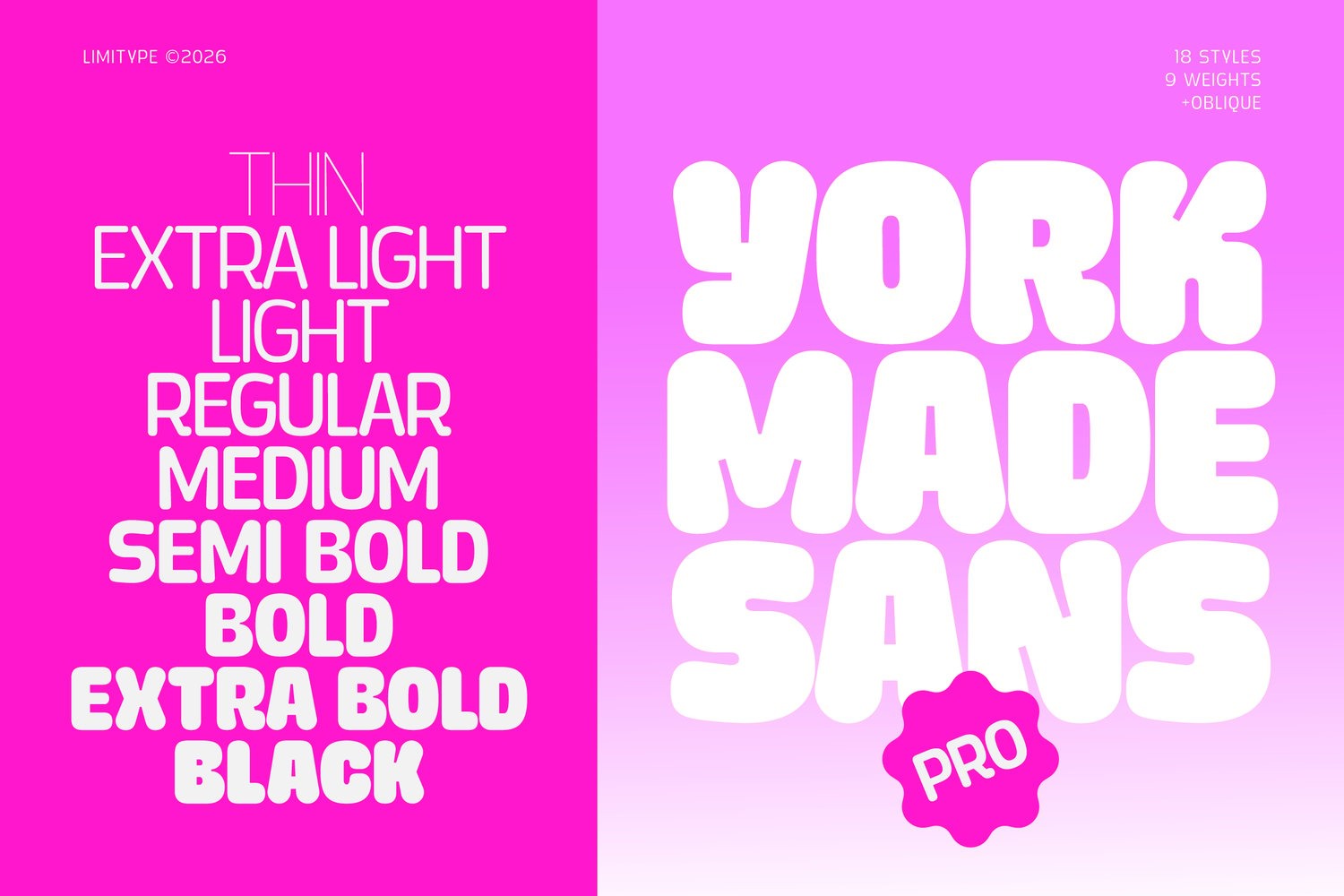
Yorkmade Pro – Sans Serif Font Family
Yorkmade Pro – Sans Serif Font is a professionally designed typeface that delivers clarity, structure, and consistent performance across various design applications. This is the pro version of the previous font, Yorkmade standard, featuring an updated family that is more versatile and enriched with additional glyph characters. Yorkmade Pro is suitable for display needs or designs that require large text, and it can also serve as body text.